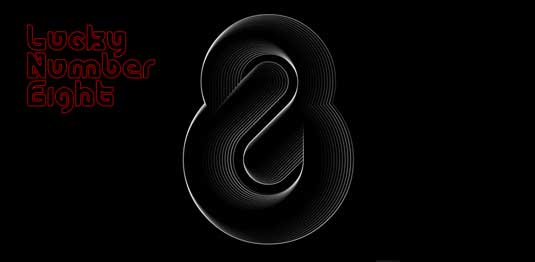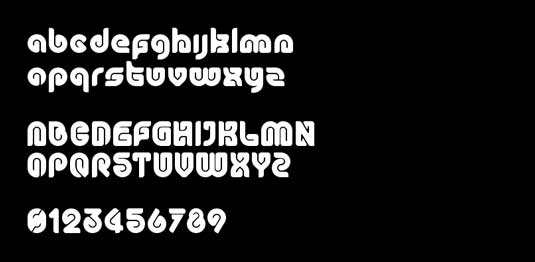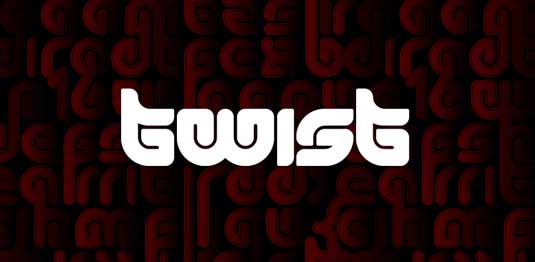
Font of the day: Twist
Every day we showcase the best fonts on the web. Today it's Twist from Superfried.
Twist from Supefried
The team at London-based graphic design studio Superfried are behind today's typeface of choice, Twist. Superfried's Mark Richardson comments: "Twist is an experimental, retro display typeface. As its name suggests, it features intricate twists and turns, creating a distinct, high-impact effect."